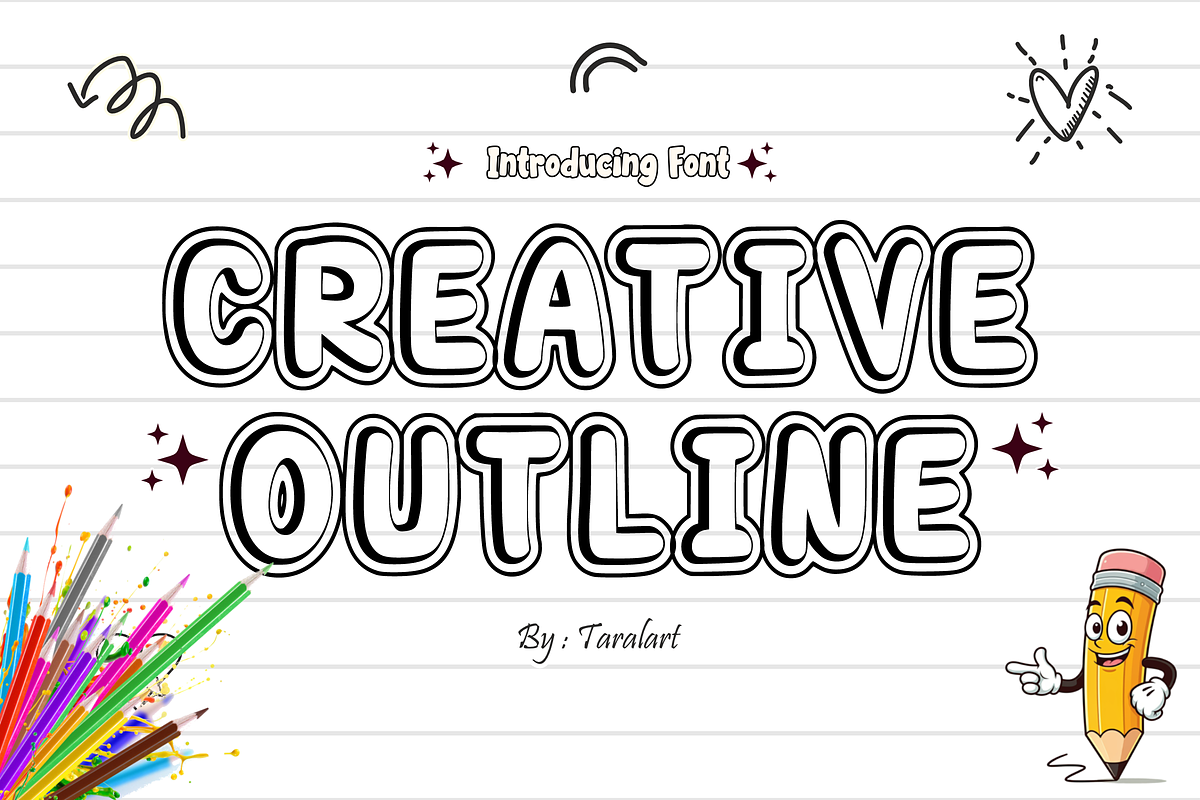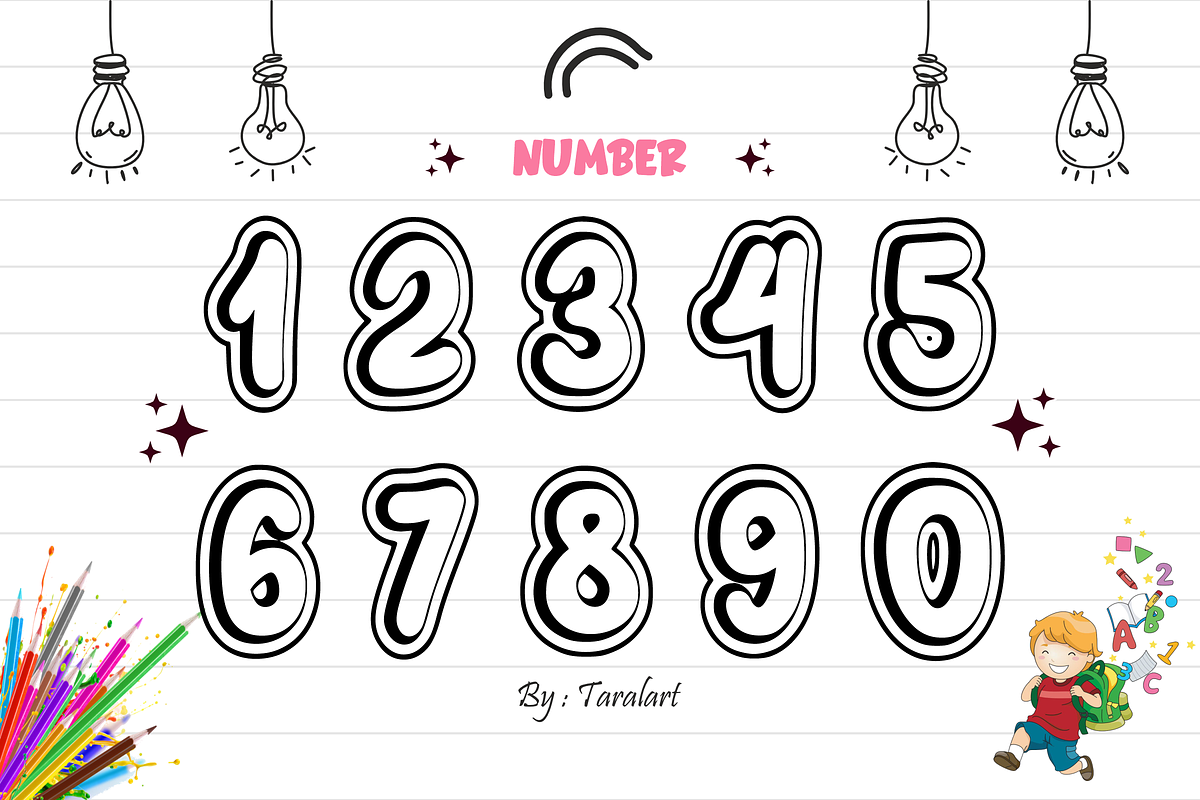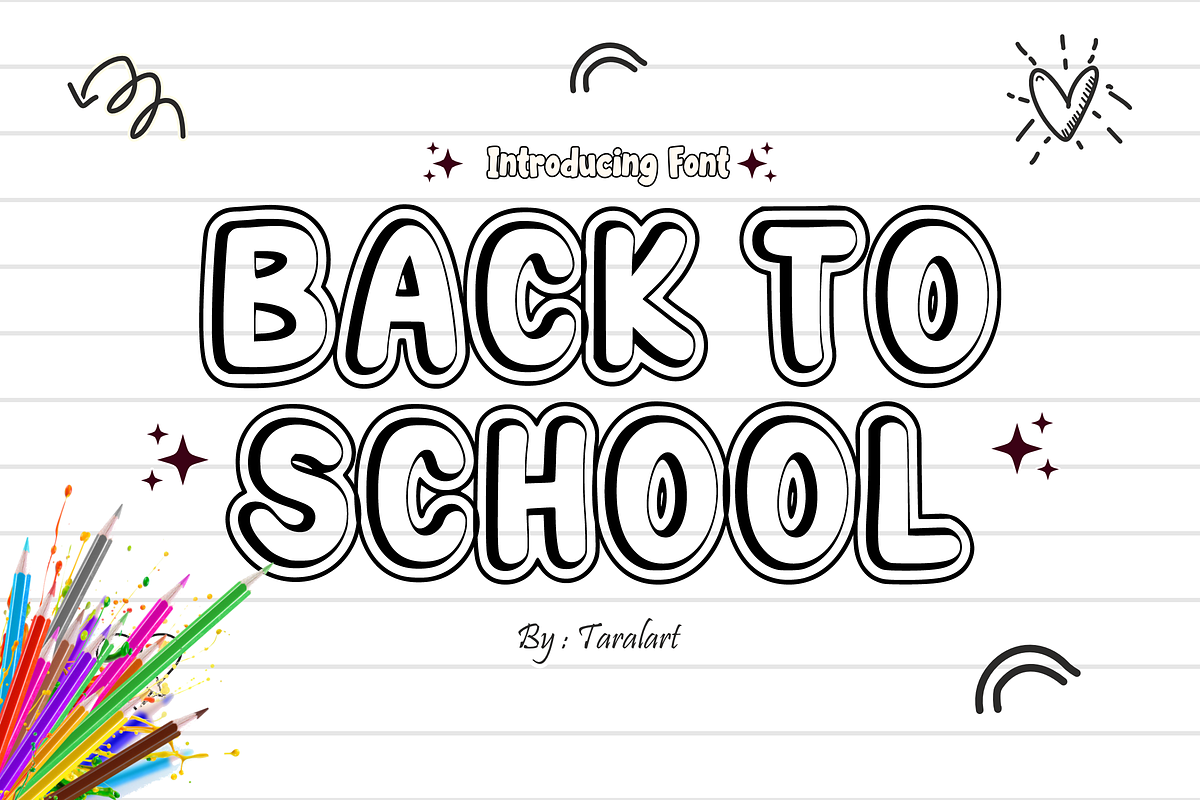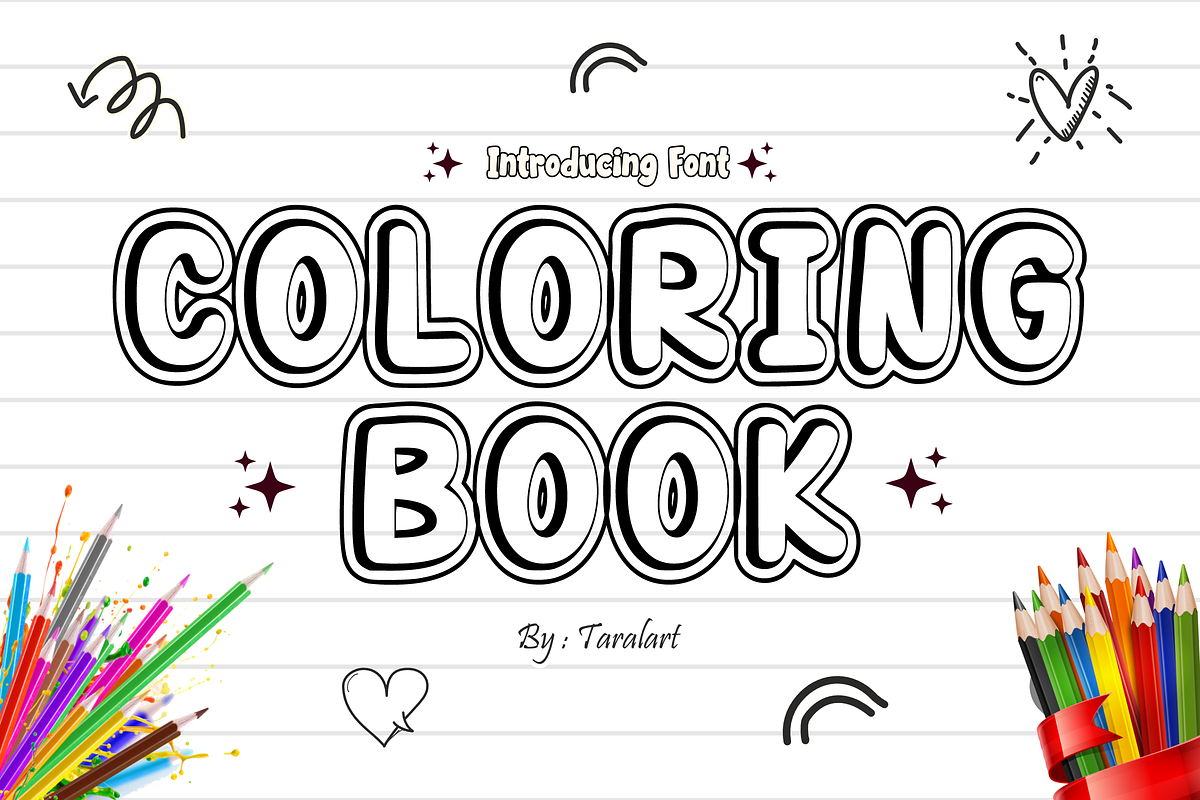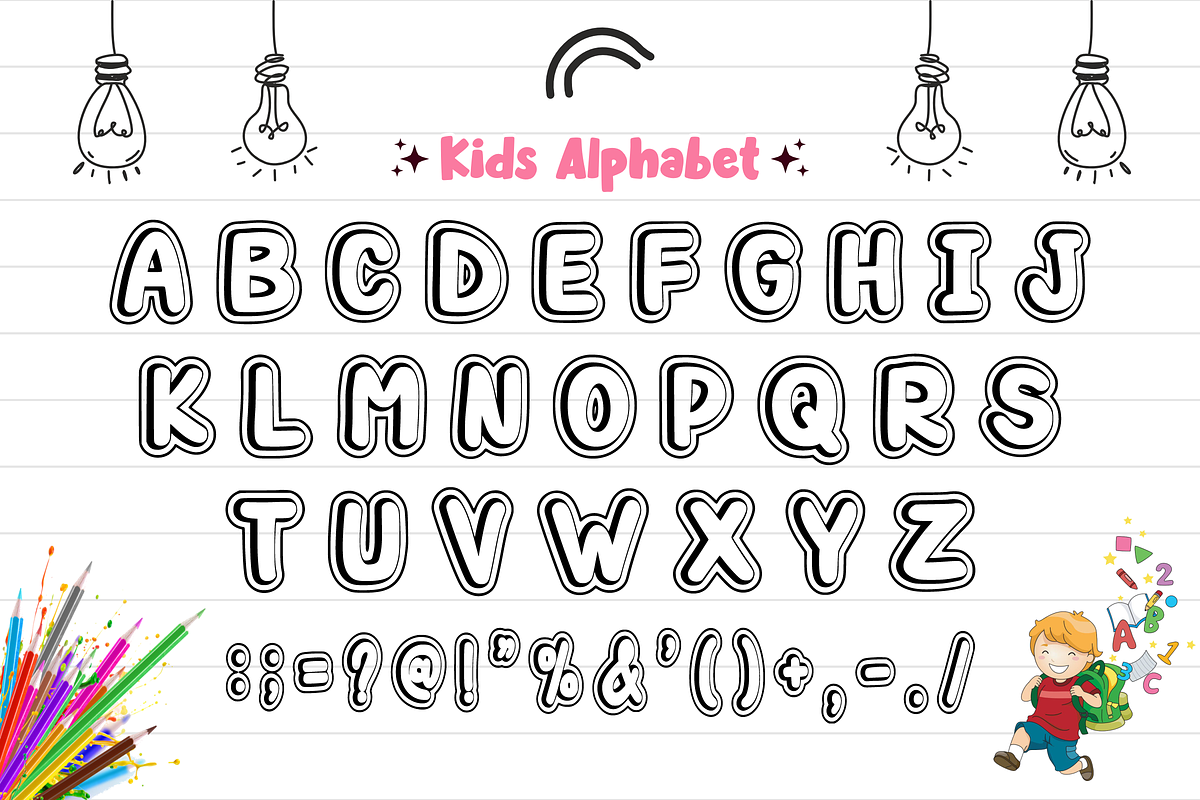
CREATIVE OUTLINE - Outline Font
CREATIVE OUTLINE - Playful Hand-Drawn Outline Font
Outline your next big idea with pure fun and imagination! Creative Outline is a bold, bubbly display font featuring clean, hand-drawn outer contours with an open, hollow center. It’s the ultimate choice for making your headlines, titles, and creative layouts look incredibly fresh, lighthearted, and eye-catching.
Perfect for school materials, children's products, and trend-focused crafting, Creative Outline masterfully pairs a casual cartoon look with outstanding legibility. It is highly versatile, deeply expressive, and fully optimized for seamless performance across premium digital cutting tools and professional print setups.
All-Caps Character Set (Chunky, playful outline uppercase letters)
Numbers & Basic Punctuation (Essential, simple symbols included)
Teacher Resources, School Printables, & Kindergarten Classroom Decor 🎒
Cricut, Silhouette, & DIY Kid-Friendly Craft Sublimation Projects ✂️
Children’s Book Covers, Activity Worksheets, & Educational Material 📚
Kids' Product Packaging, Toy Labels, & Birthday Party Themes 🎈
Custom Stickers, Coloring Pages, & Fun Youth Apparel Prints 👕